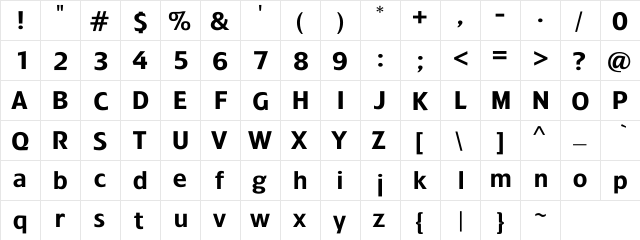
TreacyfacesSamples Medium
Design Context for TreacyfacesSamples Typeface
TreacyfacesSamples is a composed and adaptable typeface that performs quietly and consistently across a wide range of design contexts.